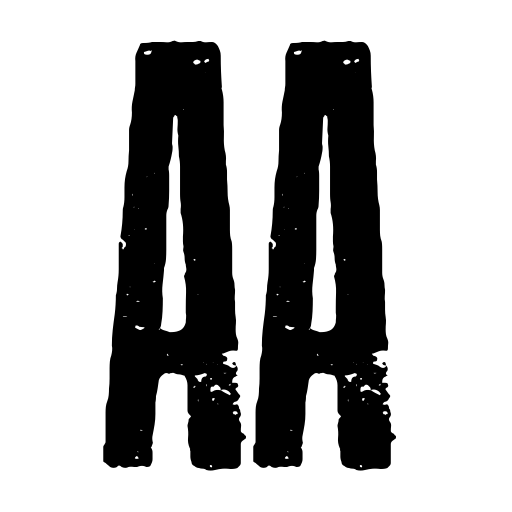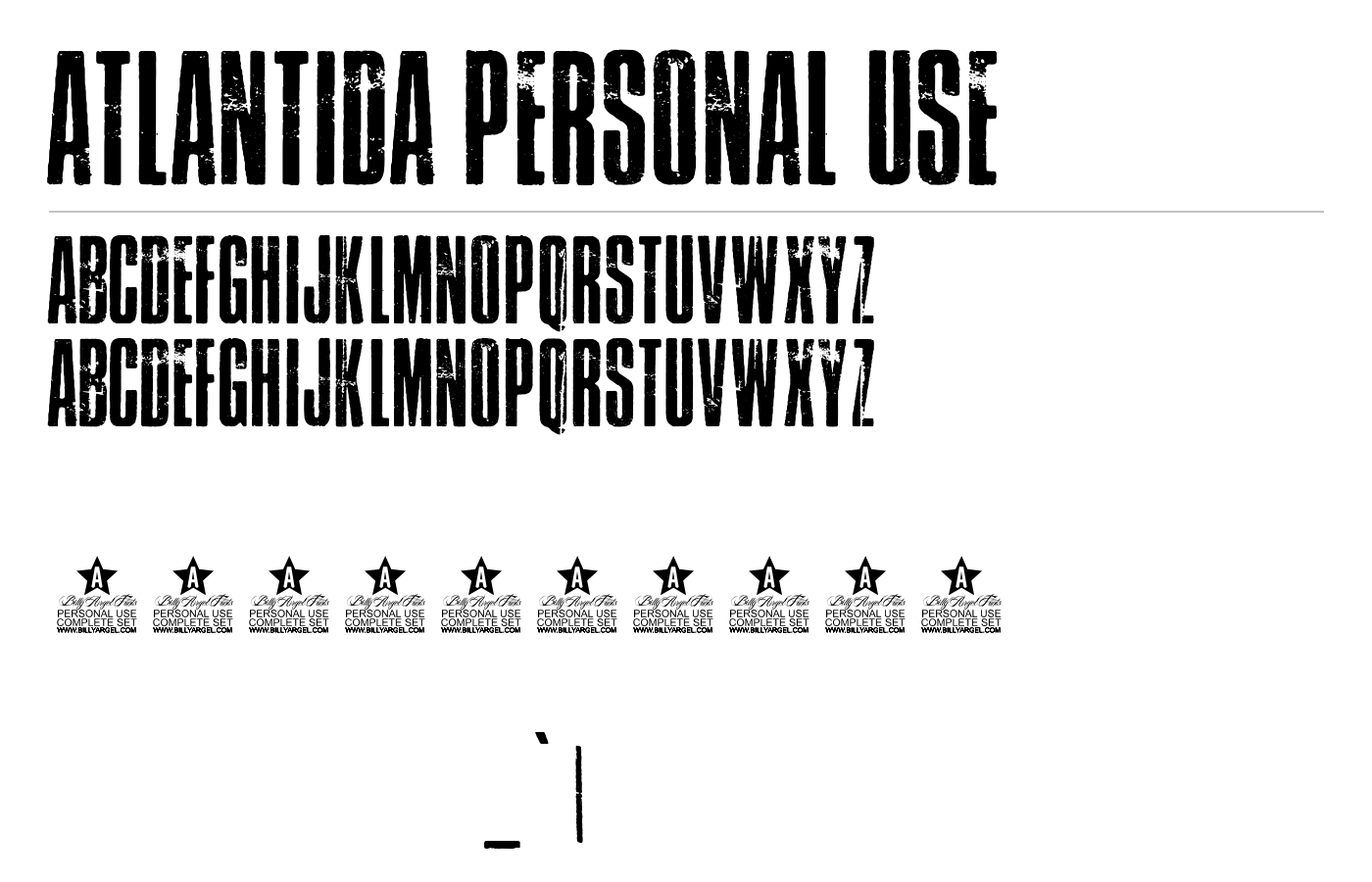
Atlantida Personal Use is a bold, condensed sans serif font characterized by its tall, narrow letterforms and distressed texture, giving it a rugged, vintage feel. Its all-uppercase design, with strong vertical lines and worn edges, makes it perfect for eye-catching headlines, posters, or branding that seeks a gritty, industrial vibe. This font works well for projects needing a bold statement with a touch of character and authenticity.
Atlantida PERSONAL USE Font
About Atlantida PERSONAL USE Font